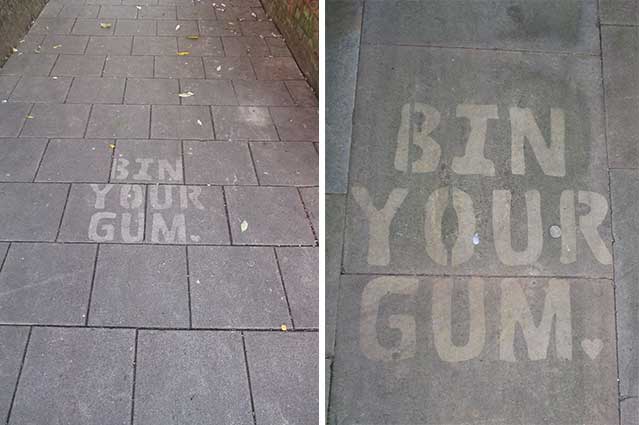
Hutland
Road
Spotted in early March 2014 in Hutland
Road, east Ipswich – another example was noticed round the corner in
Sidegate Lane. Hardly, 'historic' lettering, but we thought that
this public lettering deserved recording here.
'IPSWICH BOROUGH
COUNCIL
CLEAN IT UP!'
2014 images
The graphic device says it all.
Quite how they create these signs is uncertain. A stencil, to be sure,
but is it sprayed with a bleach to cut through algae and dirt, or with
a pale dye which will eventually weather away?
Tower Church Yard / Oak Lane
2025 images
It wasn't until the autumn of 2025
that we noticed another example of this type of pavement sign: 'BIN
YOUR GUM.'
The sign above left is close to the entry to Tower Church Yard from
Tower Street, the pathway which leads around St Mary-Le-Tower Church – in 2025 renamed Ipswich Minster. The close-up, above right, is at
the entry to Oak Lane from Northgate Street,
ironically adorned with a blob of chewing-gum on the 'R'. The lettering
is a bit more 'beat of the street' than that used in Hutland Road
eleven years earlier. The tiny heart-shaped full-stop adds a piquancy.